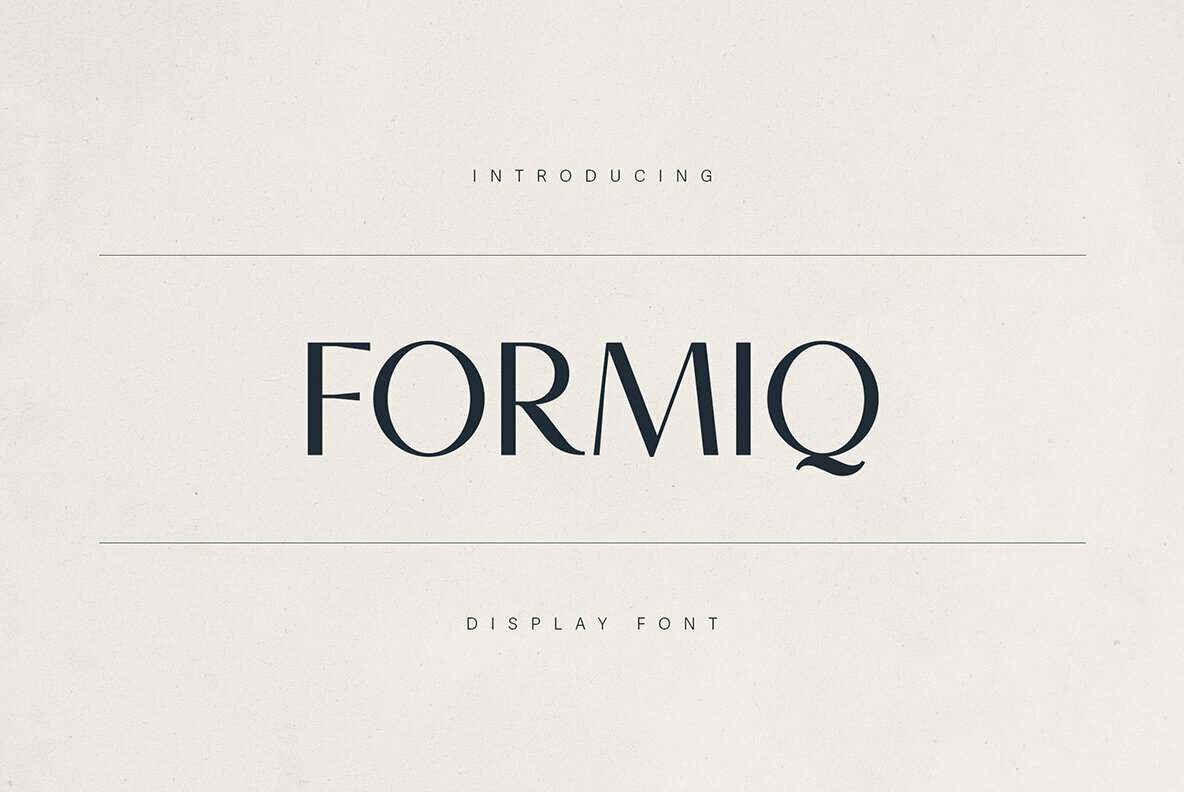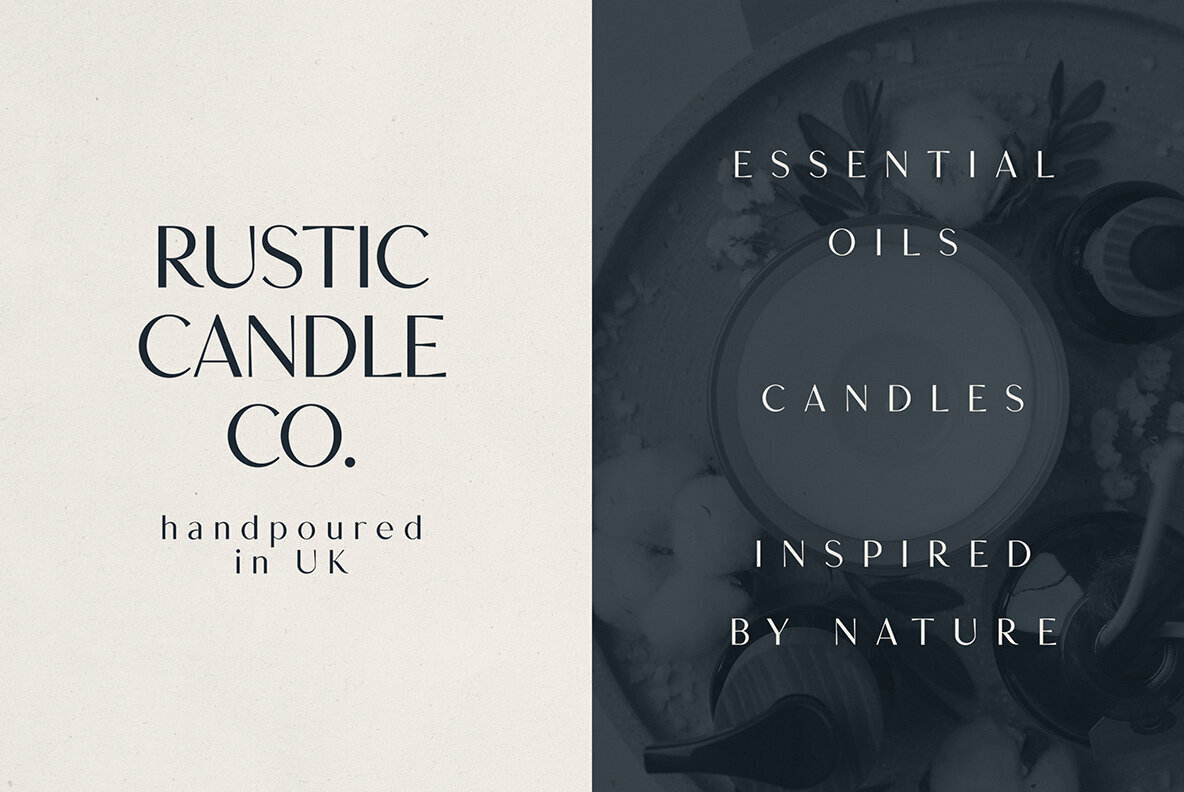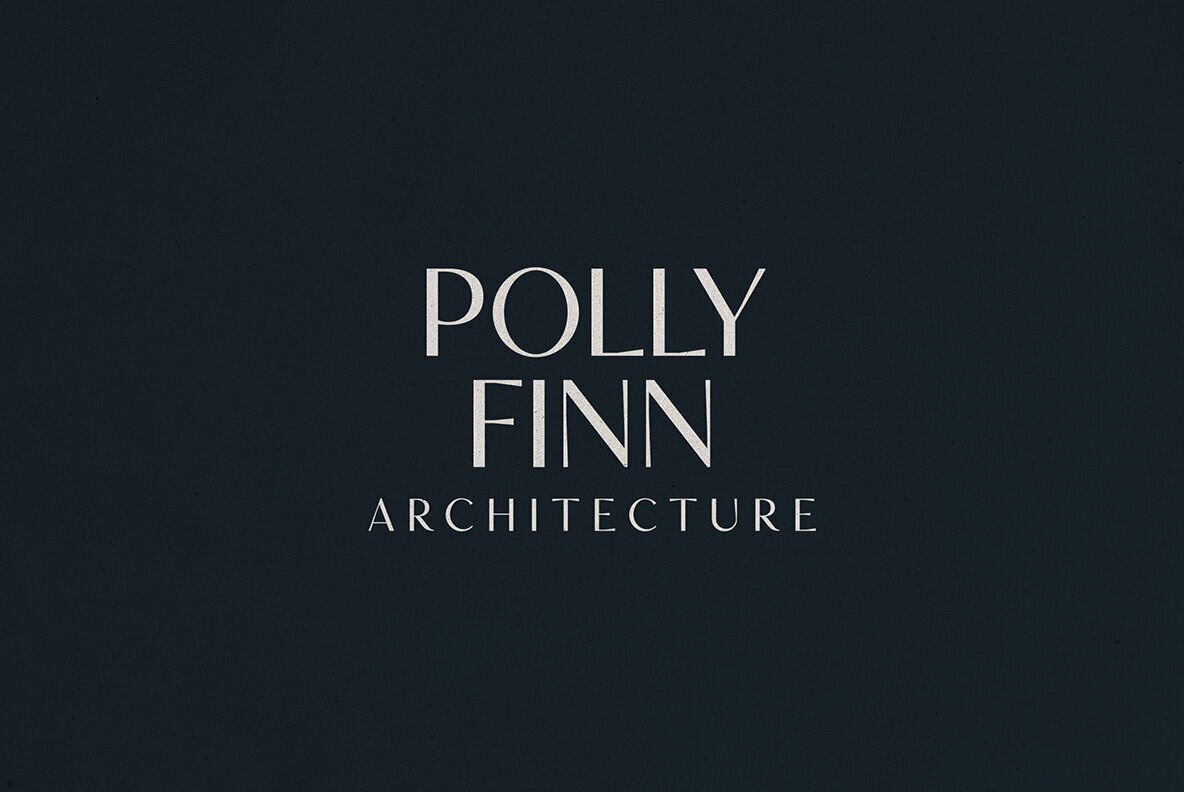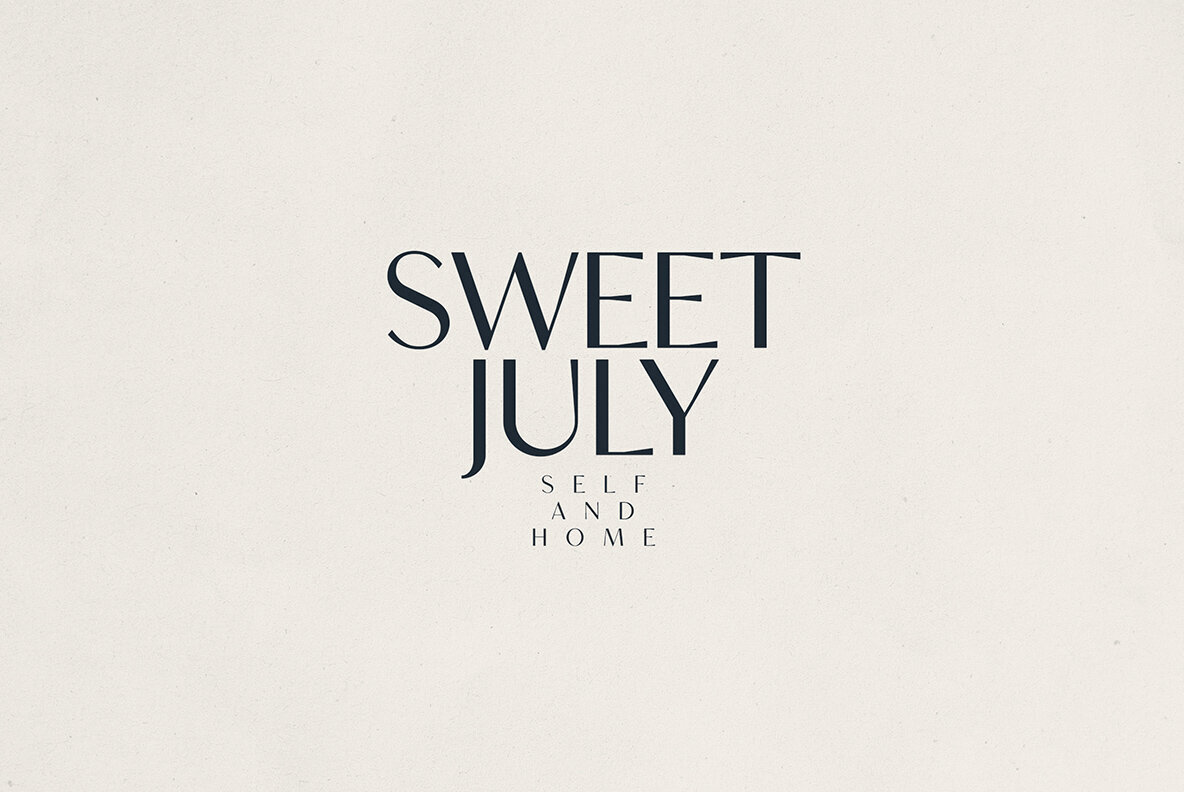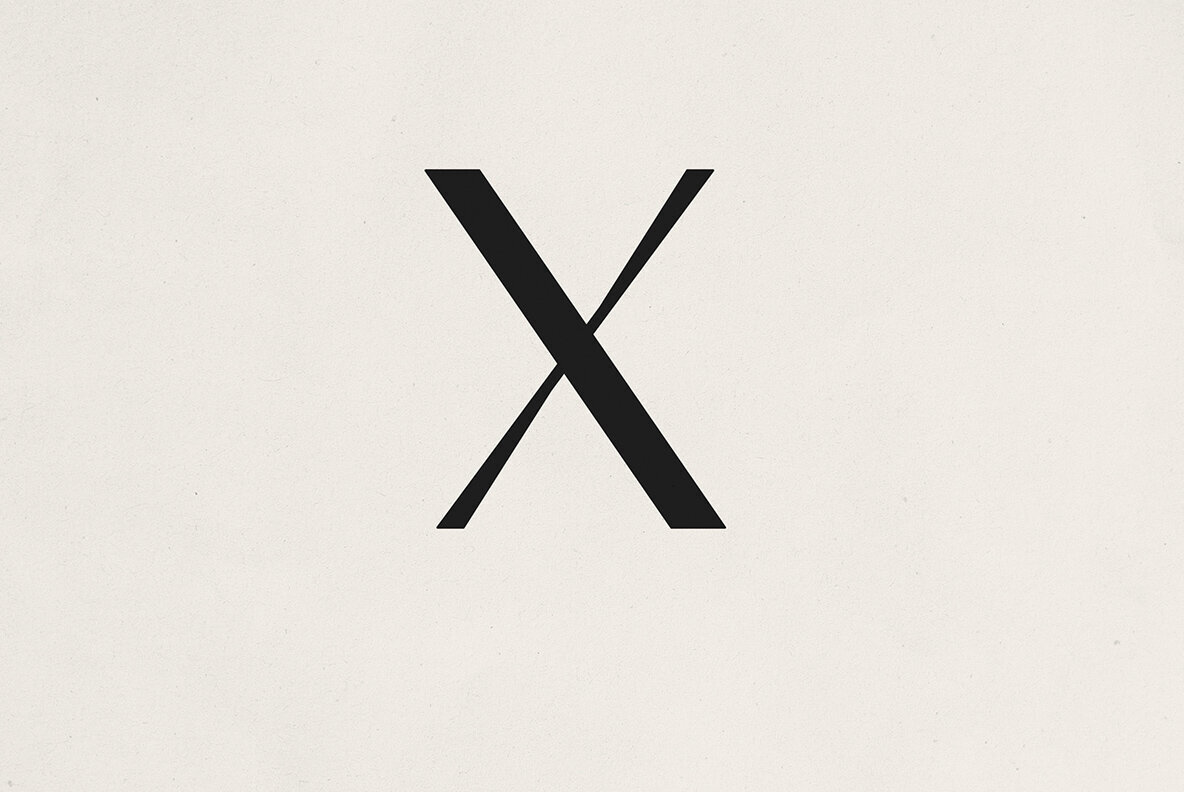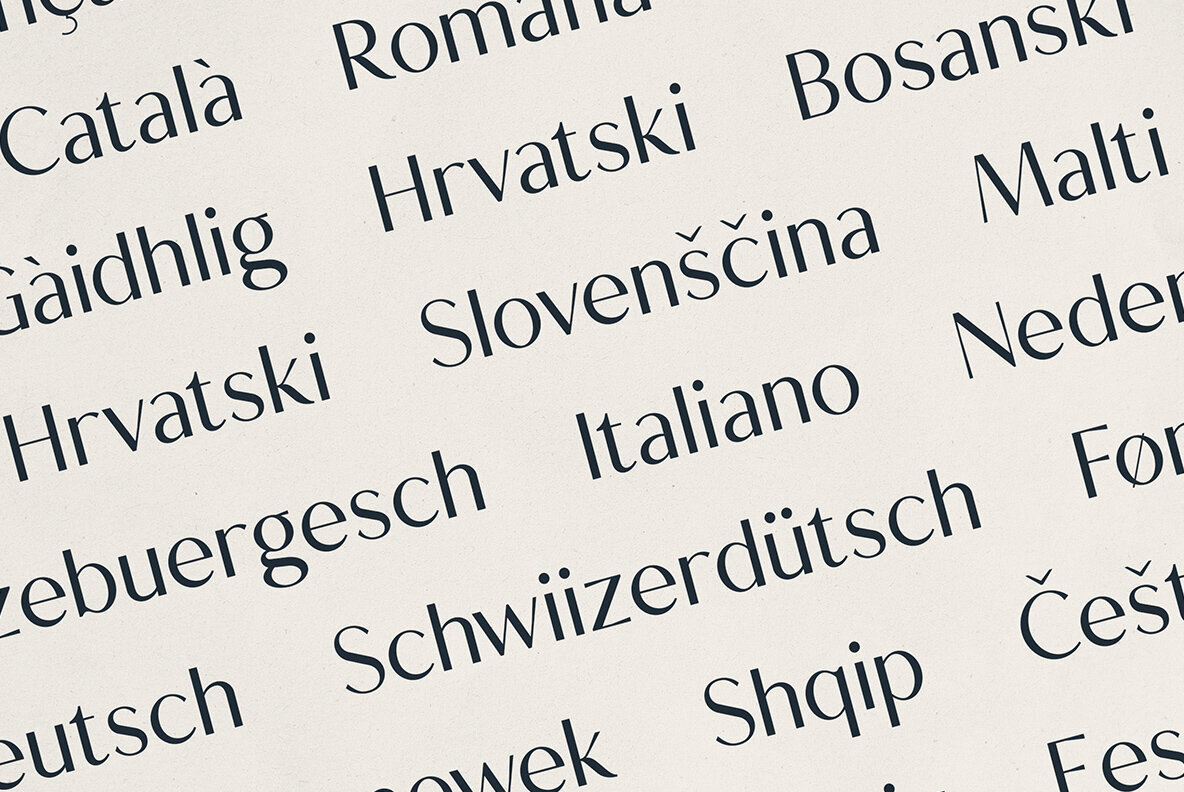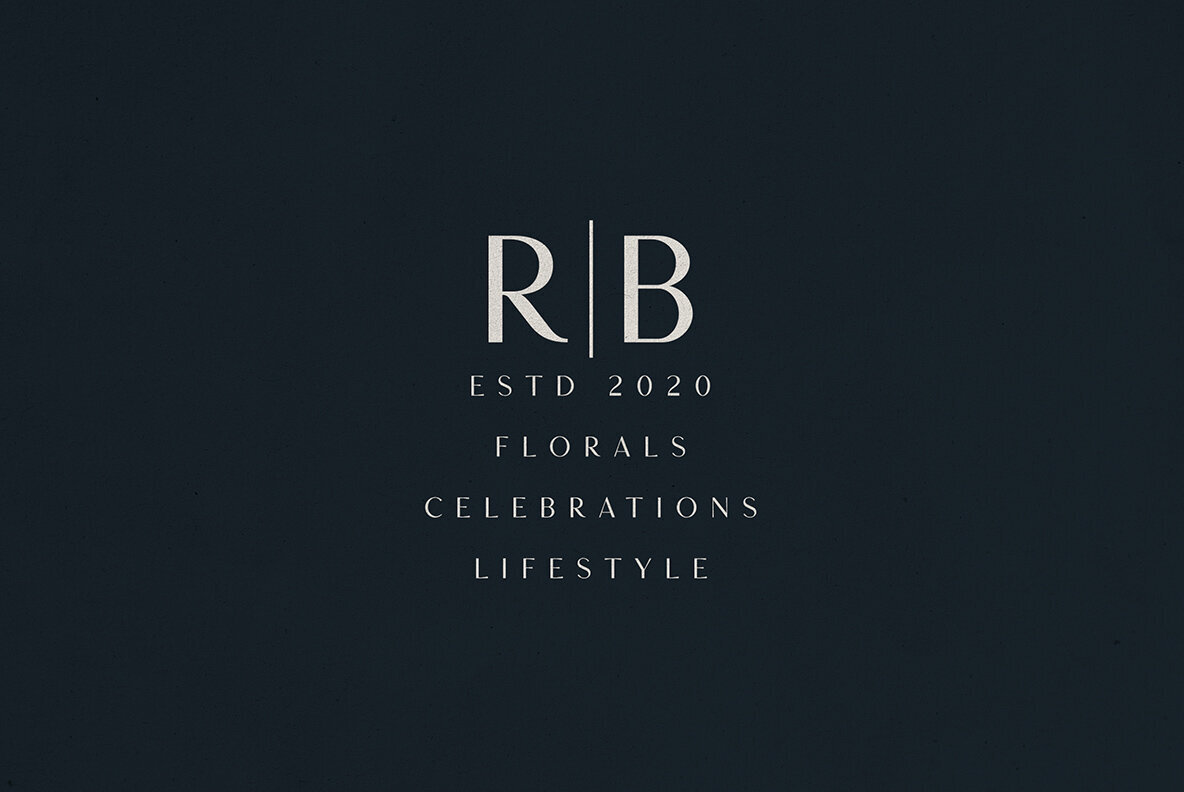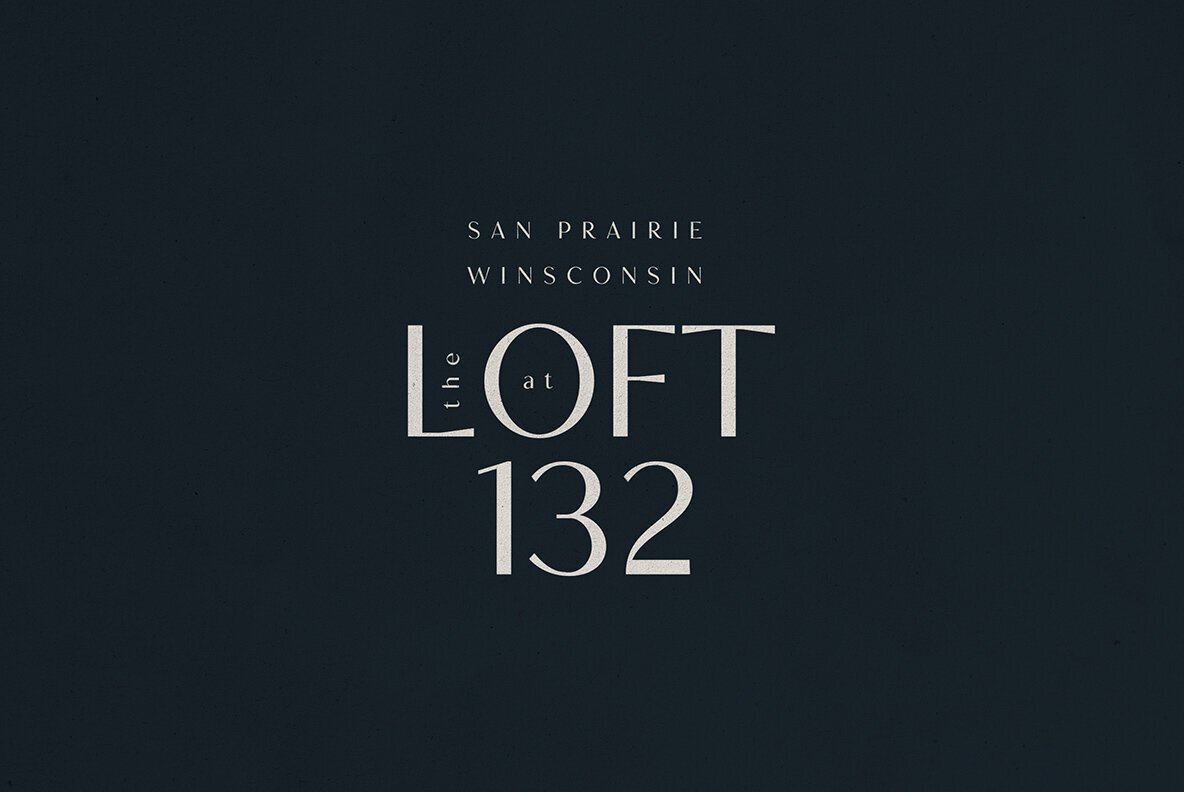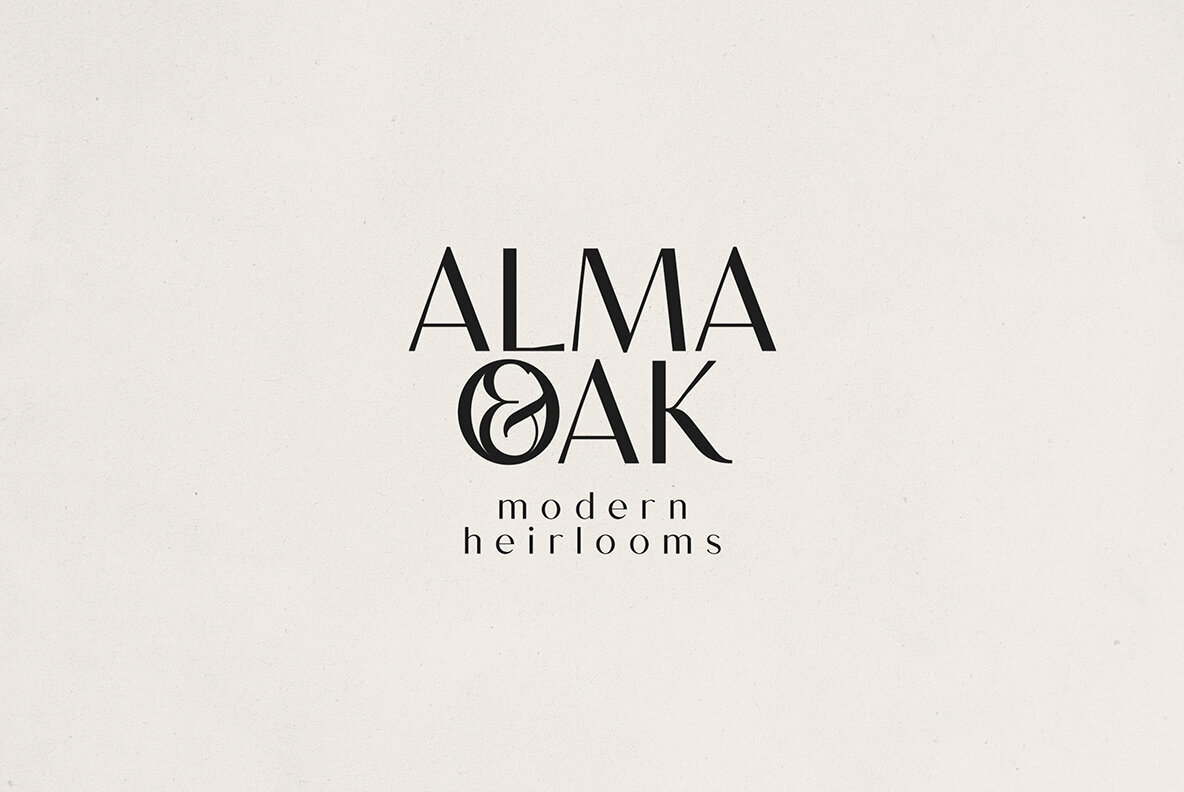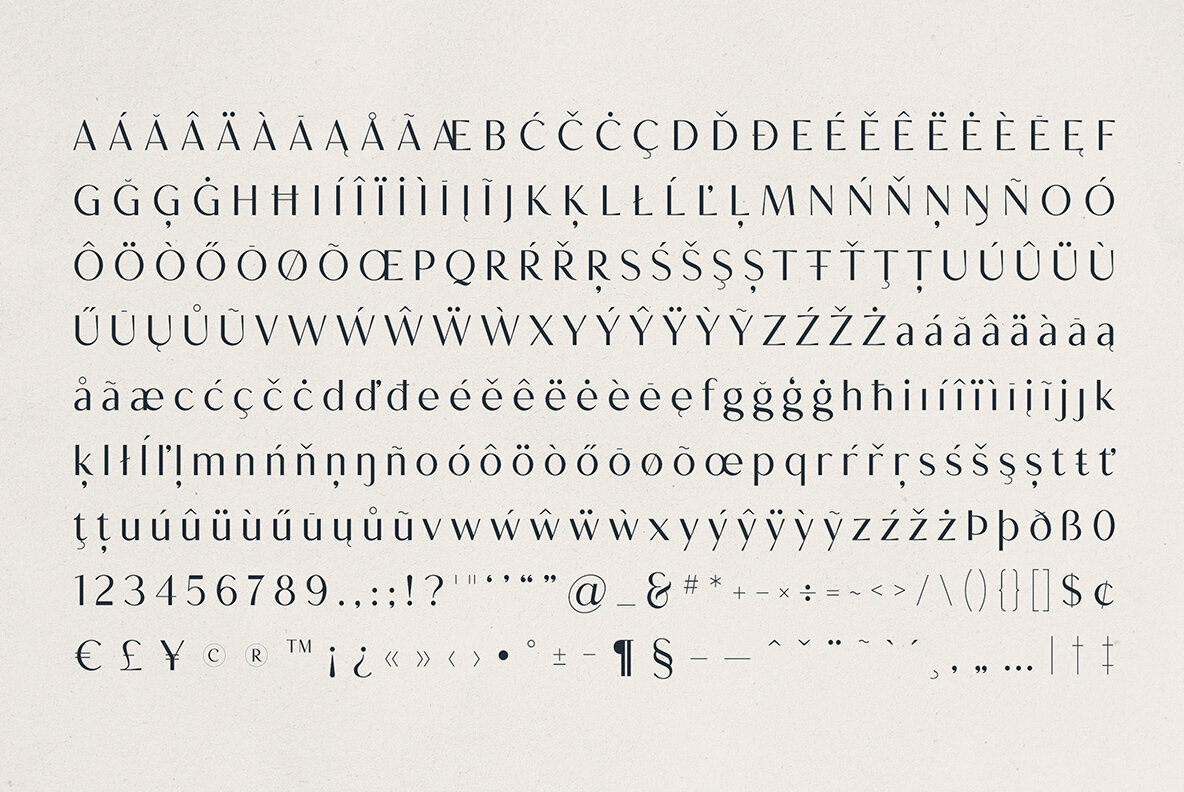
Formiq Font
Formiq
Formiq offers a distinctive high-contrast serif style for those who value both modern elegance and timeless craftsmanship. Its elongated letterforms and subtle geometric elements create a sleek silhouette, while sharp serifs and delicate tapering bring a refined edge. Designed for those who seek a sophisticated typographic voice, Formiq balances minimalism with personality to stand out in editorial headlines, boutique packaging, and digital environments. This typeface excels in both large-scale statement displays and fine, detail-oriented text. Beautifully considered proportions and full punctuation coverage ensure clarity and impact across applications. The extensive multilingual support expands creative potential, making Formiq an ideal choice for global branding and communications.Formiq: Refined High-Contrast Serif